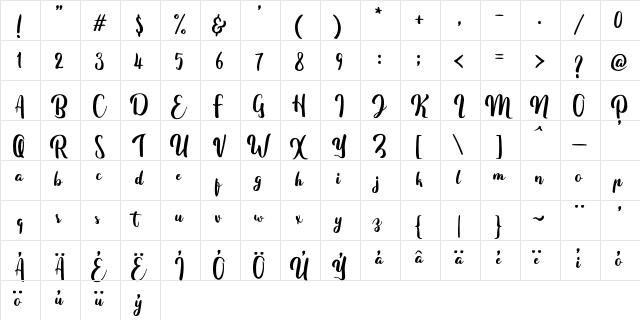
Fitamint Script Regular
Design Context for Fitamint Script Typeface
Fitamint Script flows with the natural rhythm of handwritten lettering, making it ideal for designs that call for warmth and personal expression.
Font Pairing: Combine Fitamint Script with a simple geometric sans for maximum contrast — the tension between flowing curves and clean structure is a classic typographic pairing.
Pro Tip: Pair Fitamint Script with a clean sans-serif for supporting text. The contrast between fluid script and geometric structure creates an elegant typographic hierarchy.